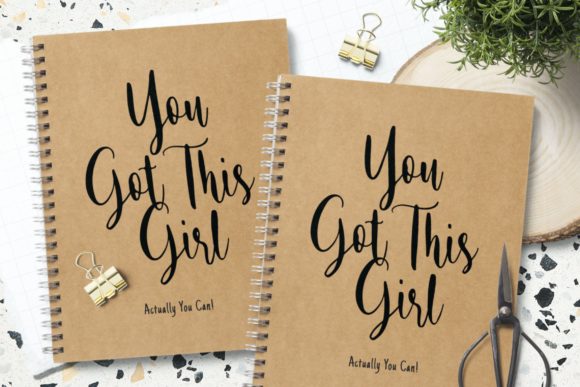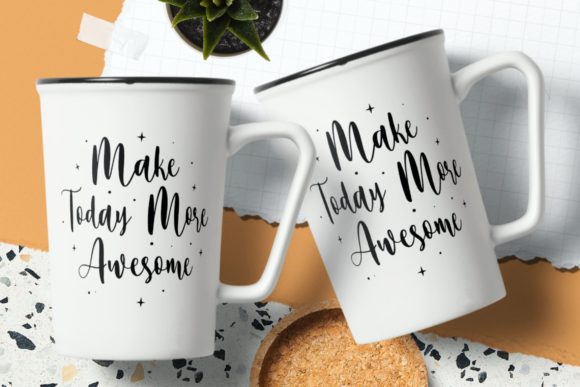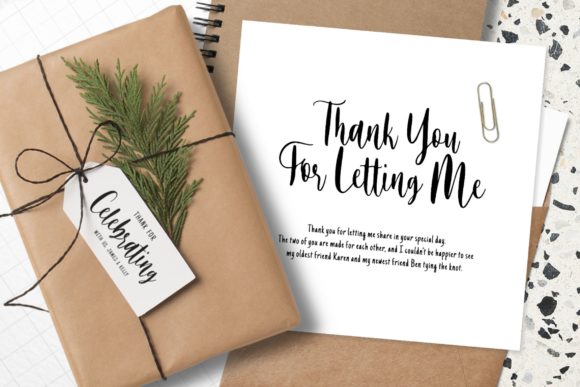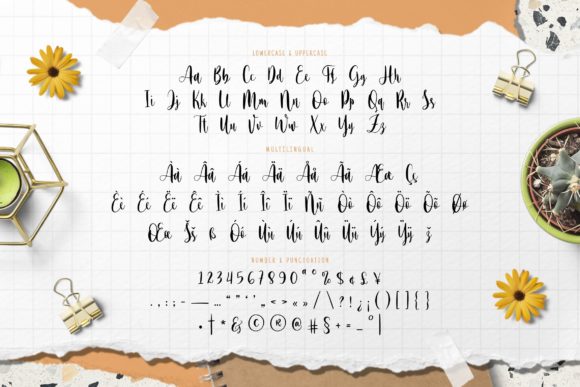
About The Softone Font
The Softone is a charming and delicate handwritten font that exudes a sweet and joyful vibe. With its soft and graceful letterforms, this font is perfect for creating elegant and personalized designs, particularly for special occasions like weddings, invitations, and cards.
The gentle curves and smooth strokes of The Softone give it a romantic and whimsical feel, making it an ideal choice for expressing love and warmth in your designs. Whether you’re designing wedding invitations, love letters, or greeting cards, this font will add a touch of elegance and personalization to your creations.
The Softone’s delicate nature makes it versatile and suitable for a wide range of projects. Its clean and legible style ensures readability while maintaining a sense of charm and sophistication. From stationery and logos to social media graphics and branding materials, this font can elevate your designs and make them stand out.
The Softone’s ability to convey emotions and create a romantic atmosphere makes it a go-to font for those seeking a personalized touch. It evokes feelings of tenderness and joy, making it perfect for any design that aims to capture the beauty of special moments and celebrations.
Whether you’re a graphic designer, a bride-to-be, or someone looking to add a touch of romance to their projects, The Softone is a delightful choice. Its sweet and delicate handwritten style will bring a sense of warmth and charm to your designs, leaving a lasting impression on your audience.
In summary, The Softone is a sweet and delicate handwritten font that is perfect for creating romantic and personalized designs. With its graceful letterforms and joyful vibe, it’s an ideal choice for wedding invitations, cards, and any other project that requires a touch of elegance and warmth.